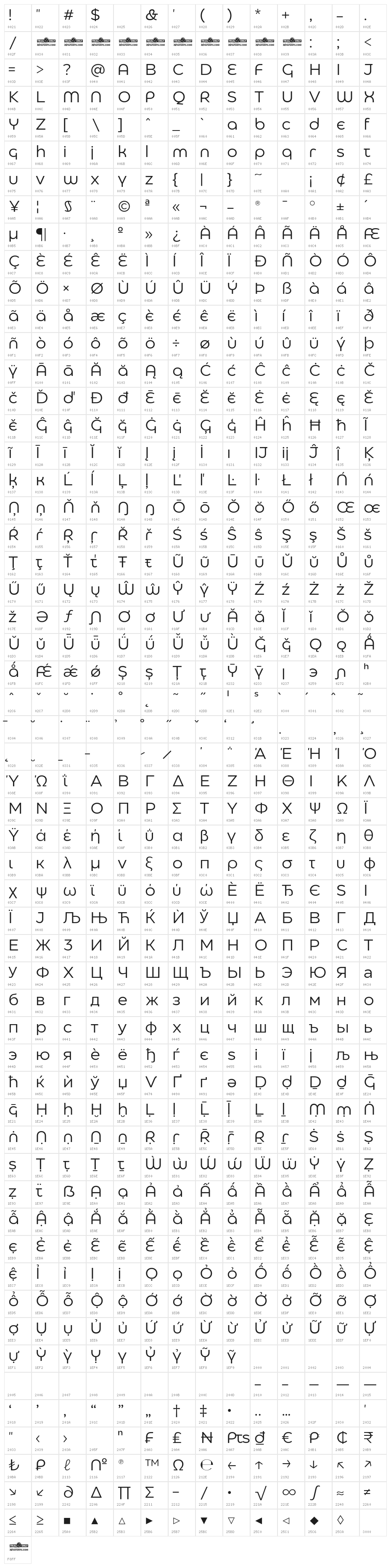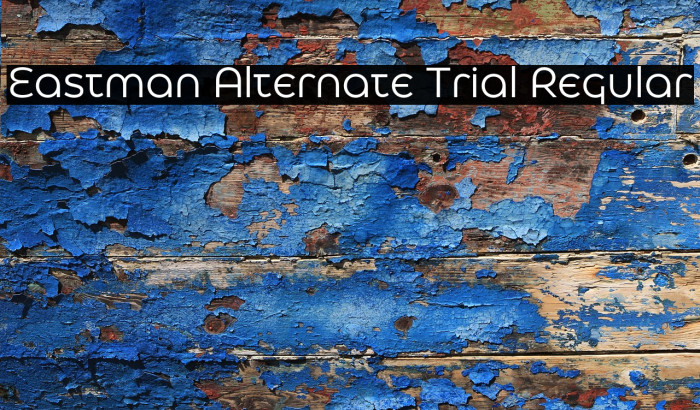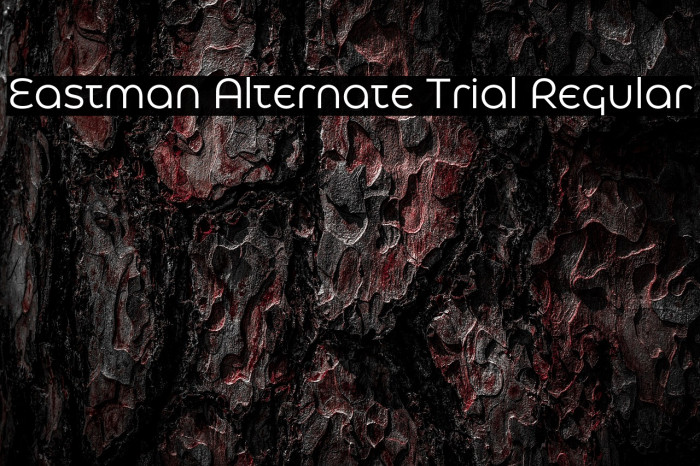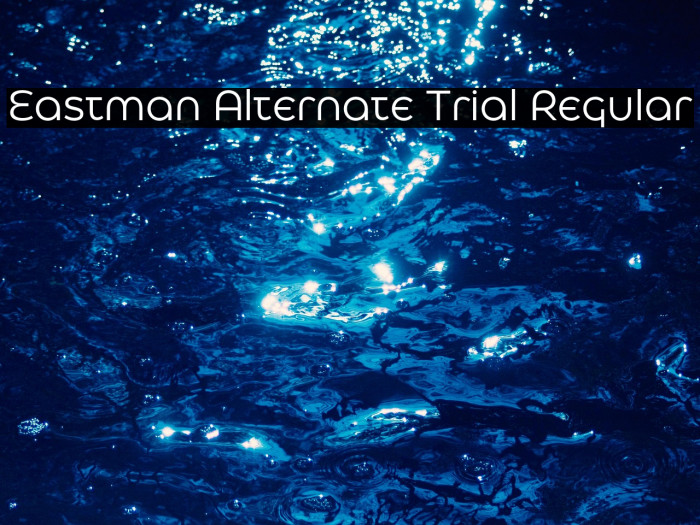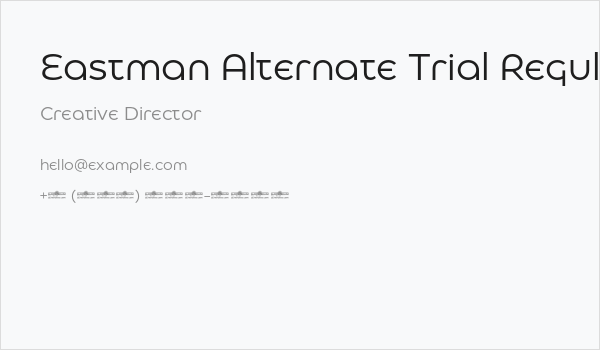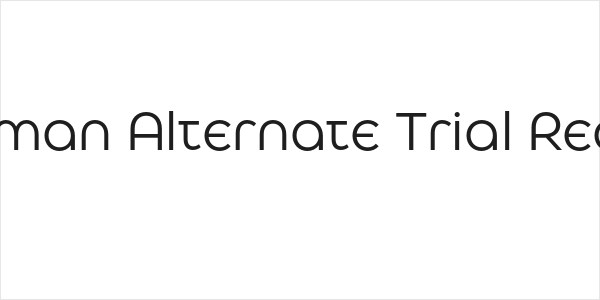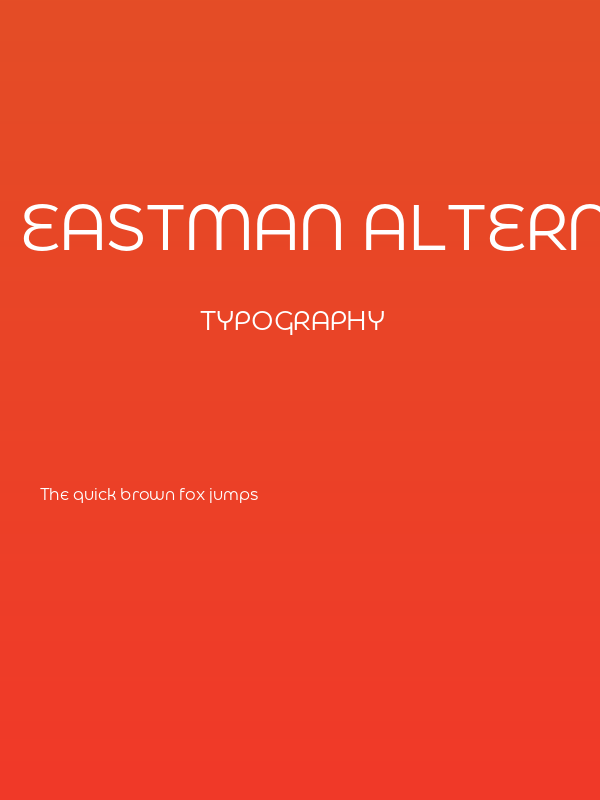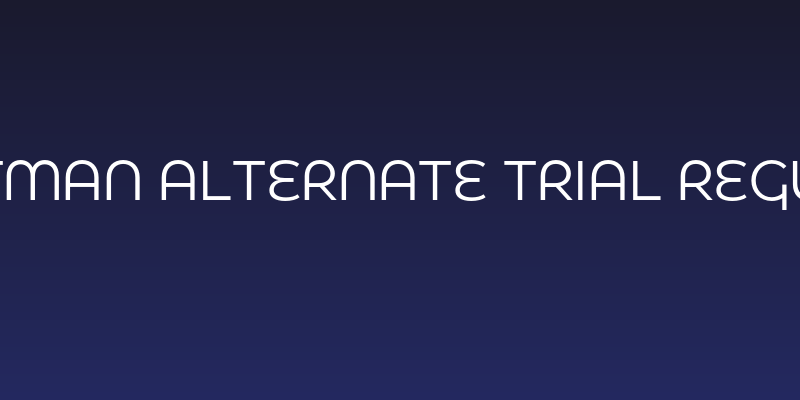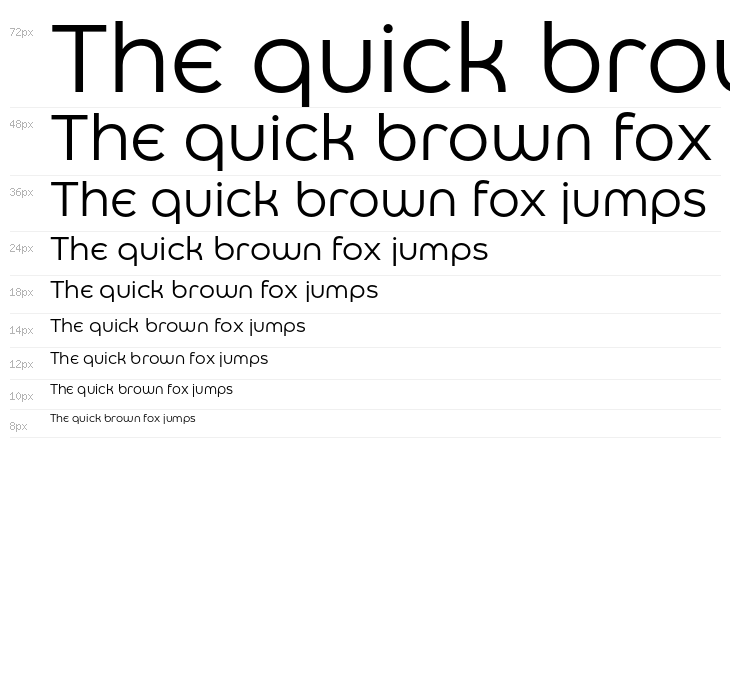
Eastman Alternate Trial Regular Font
Eastman Alternate Trial Regular Description
This font features a clean and modern design with a geometric sans-serif style. The characters are well-balanced with a consistent stroke width, giving it a sleek and contemporary appearance. The uppercase letters are slightly taller than the lowercase, providing a subtle contrast that enhances readability. The rounded edges of the characters add a friendly and approachable feel, making it suitable for a variety of design projects. The numerals and special characters maintain the same geometric style, ensuring uniformity across all text elements.